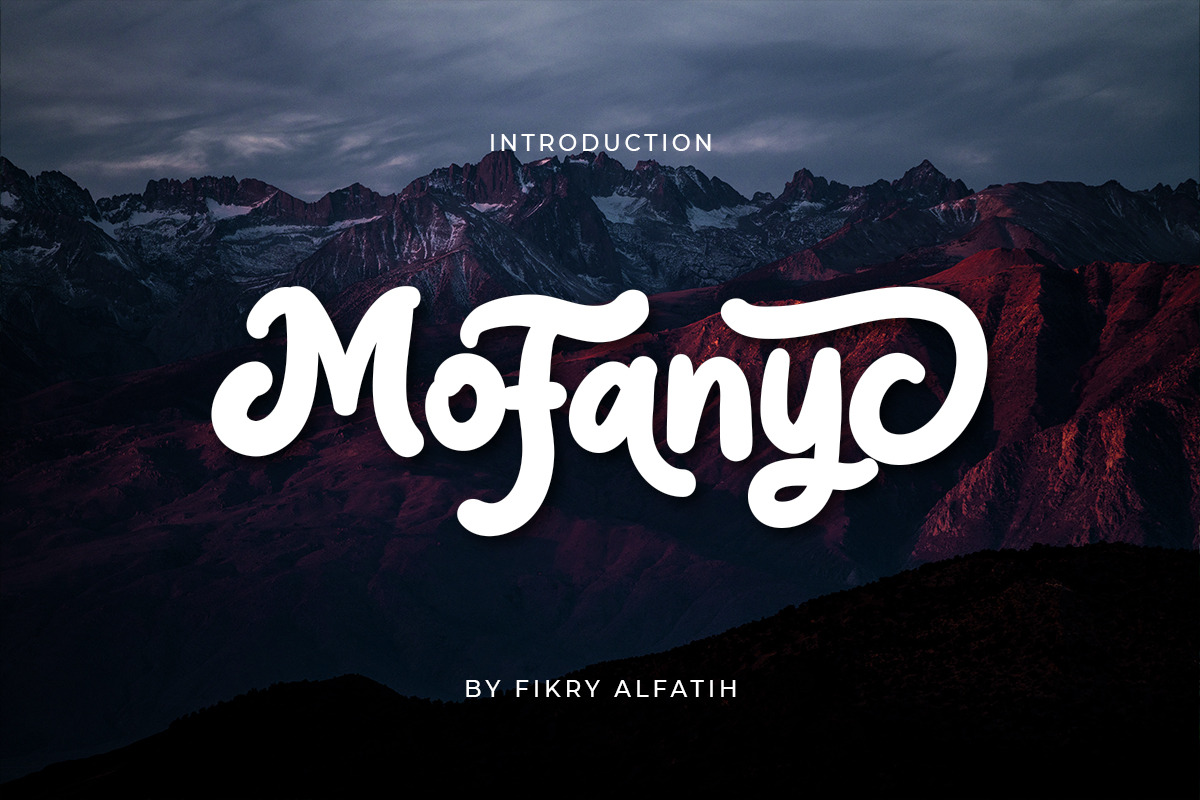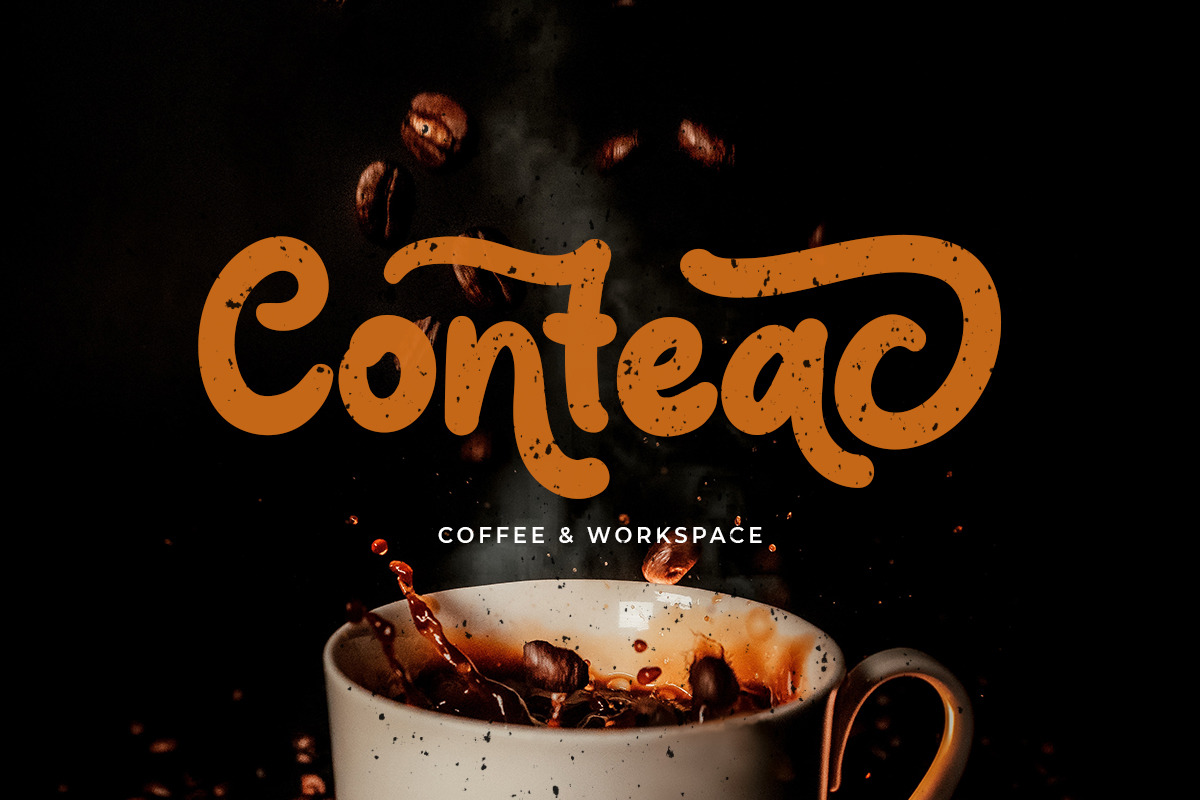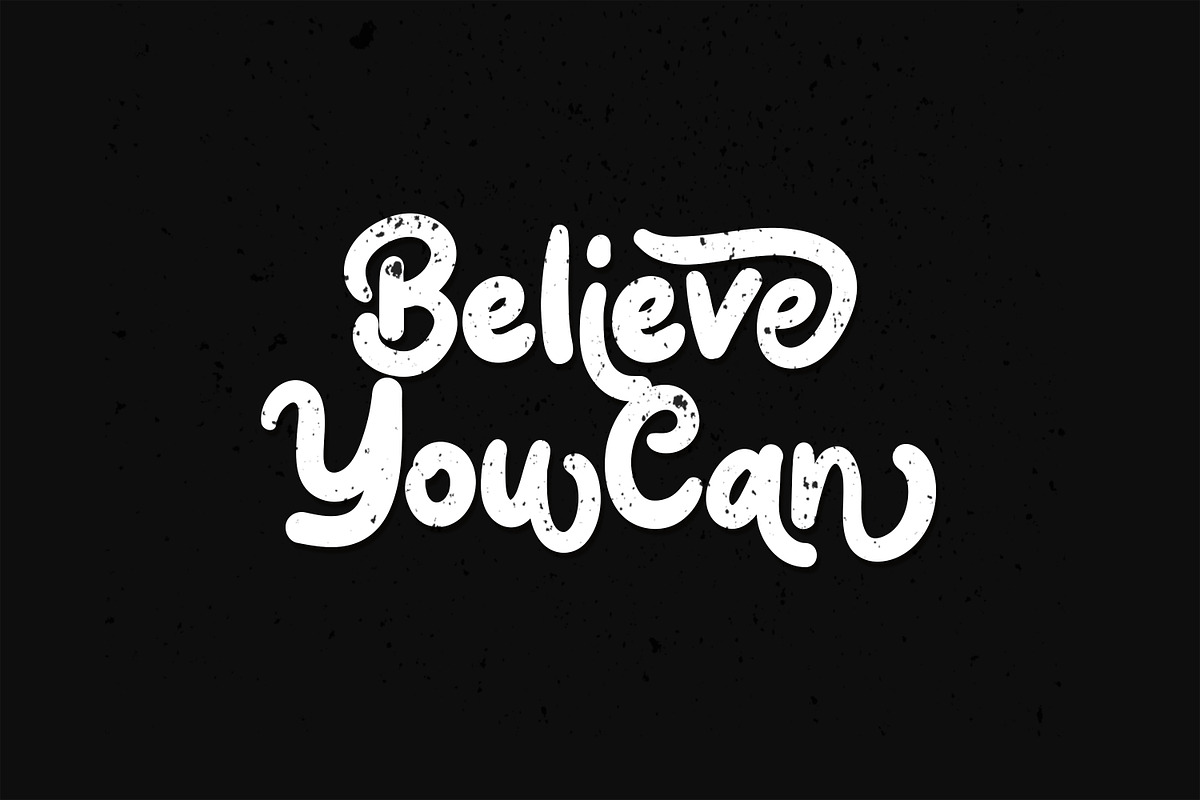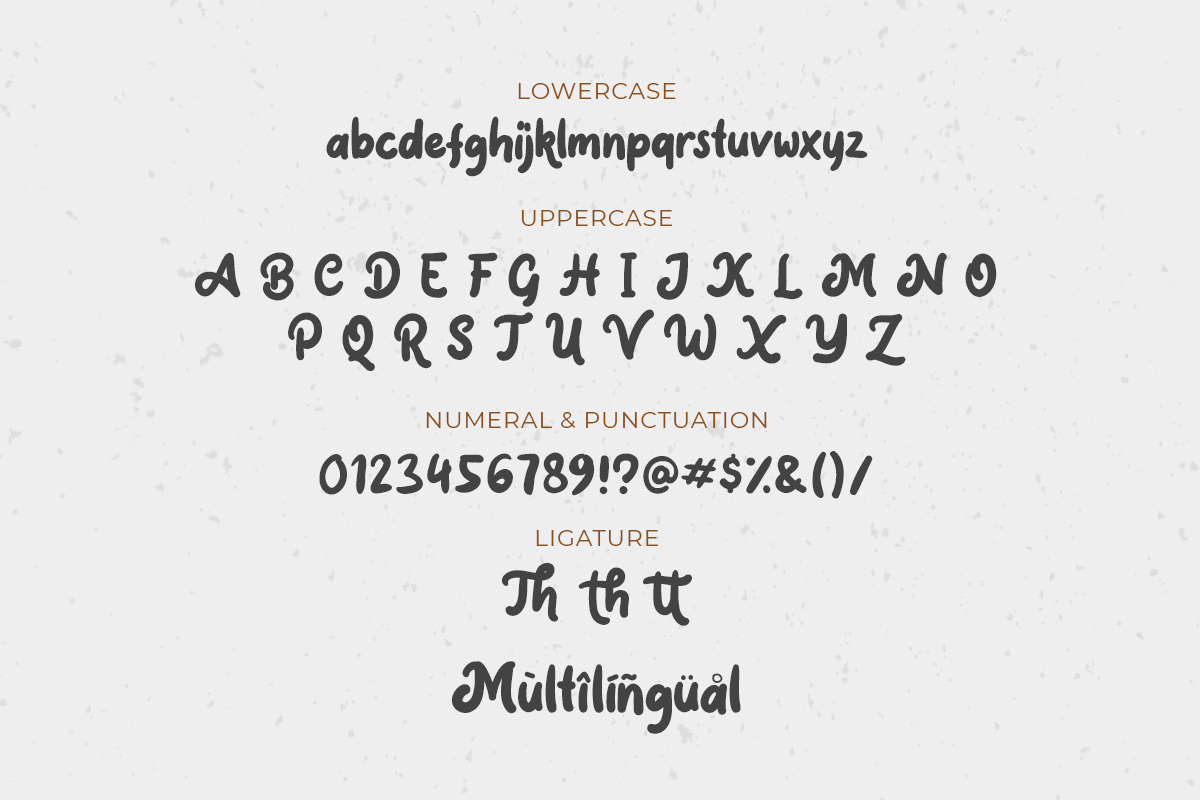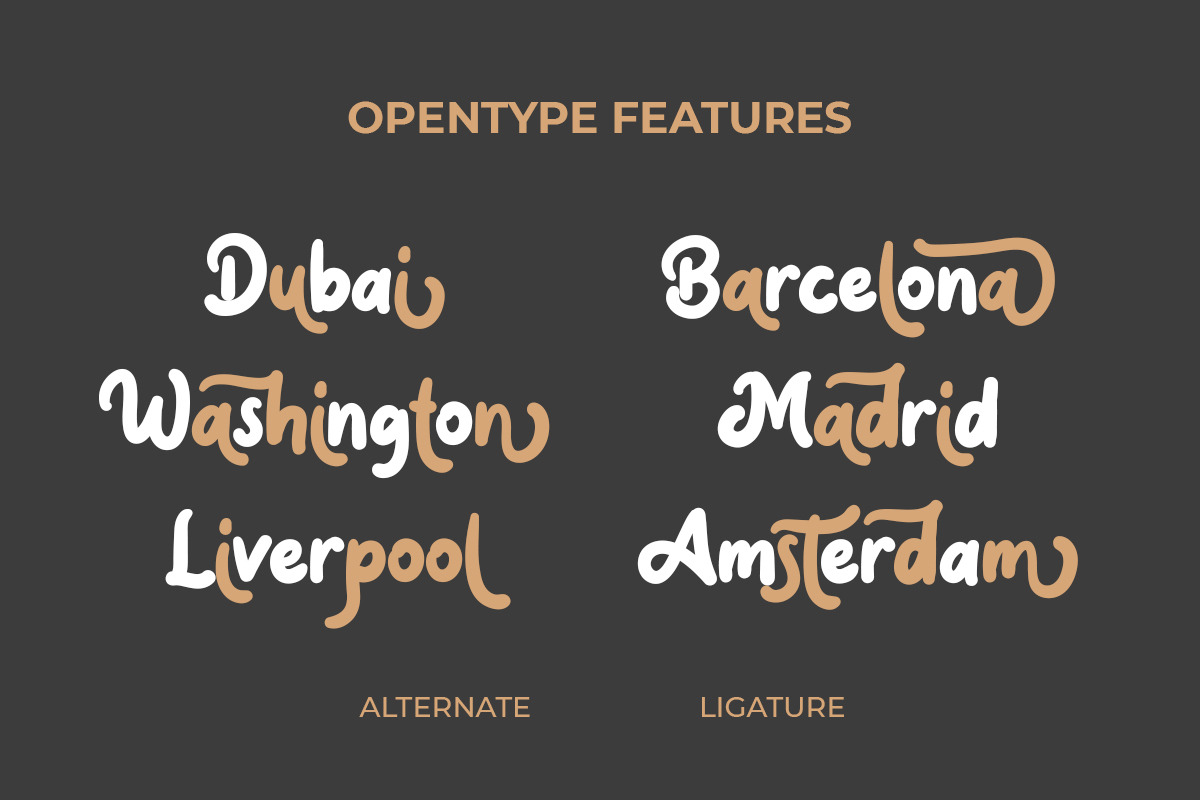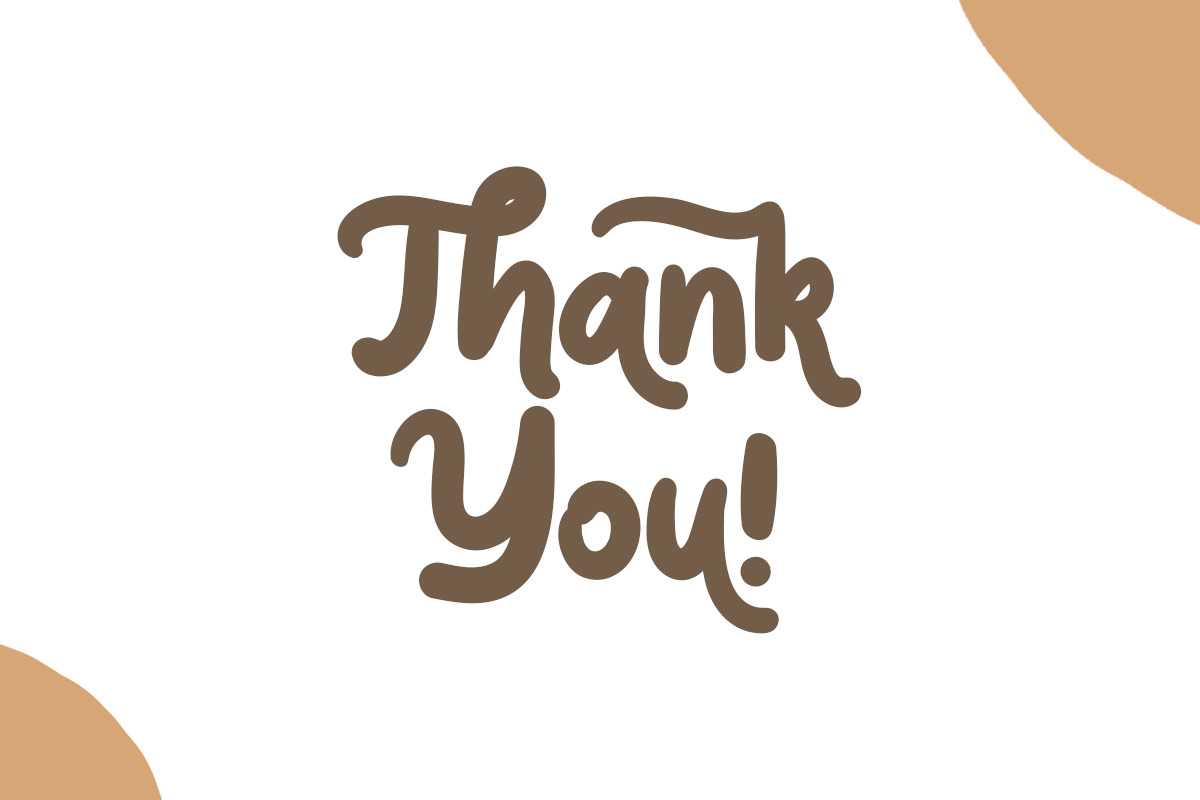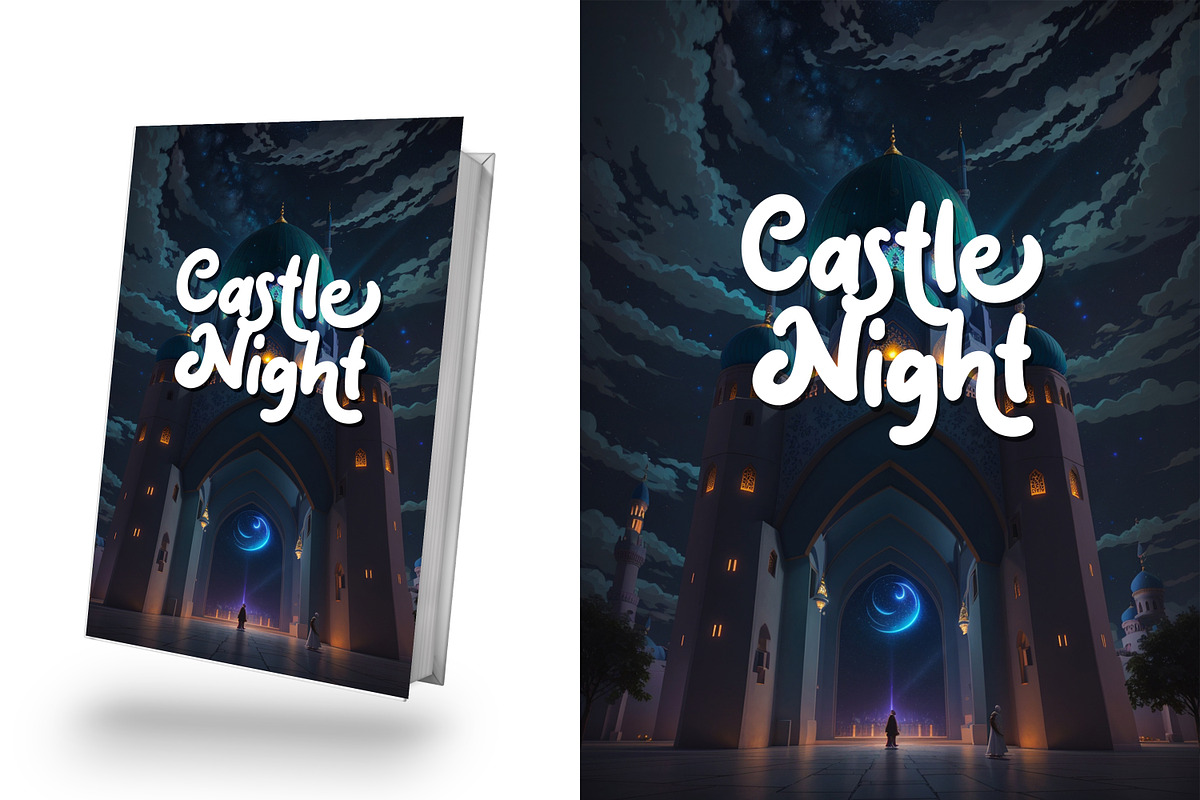
Mofanyc - Handwritten Font
Mofanyc is a bold script typeface that is simple yet casual. Made by handwritten with many OpenType features that you will like. This font is perfect for a logo, quotes, apparel design, wedding invitations, book covers, and more. You can play with the ligatures, stylistic alternate, swash, etc. to create customized lettering. This font also supports multi-language.
- alternative